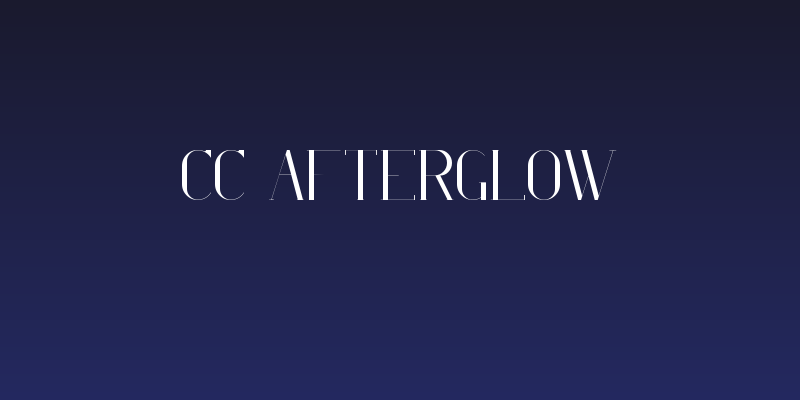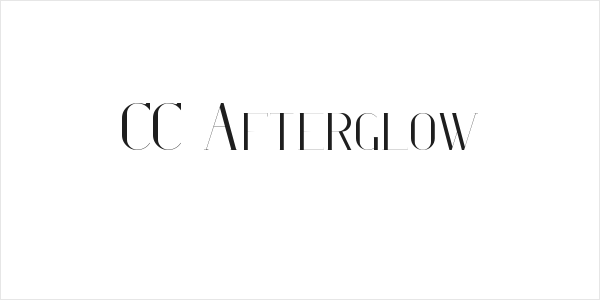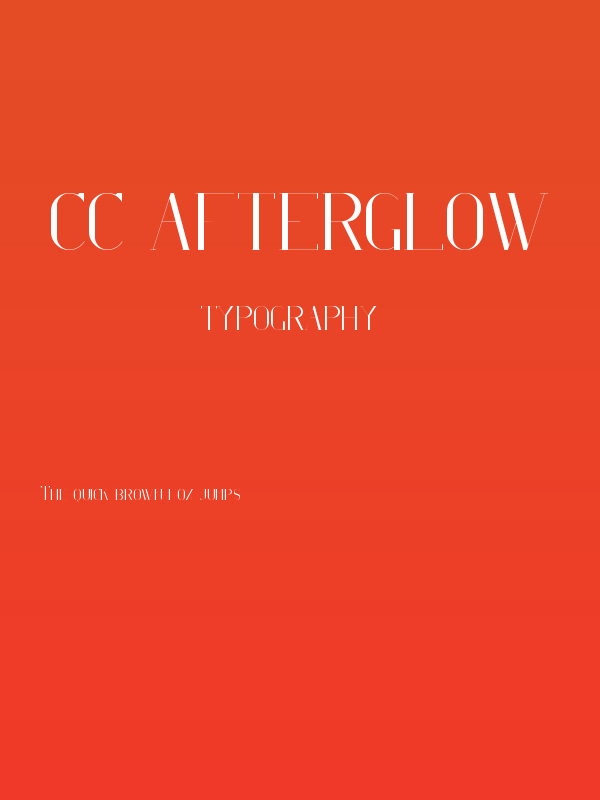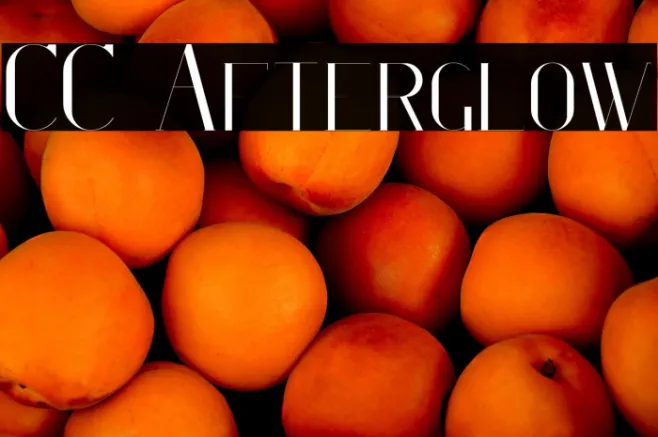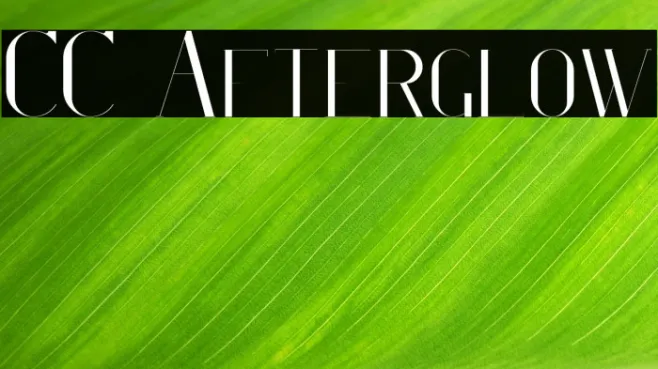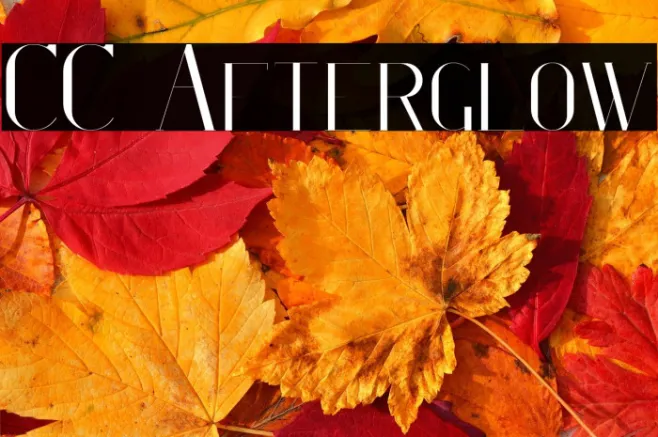
CC Afterglow Font
CC Afterglow Description
This font features a modern and elegant design with a high contrast between thick and thin strokes, giving it a sophisticated and stylish appearance. The characters are sleek and elongated, with a distinct geometric influence that adds a contemporary flair. The uppercase letters are particularly striking, with sharp angles and clean lines that create a sense of precision and refinement. The numerals and special characters maintain this aesthetic, ensuring a cohesive look across all elements. This font is well-suited for projects that require a touch of elegance and modernity.
| Overall Style | Modern, Elegant |
| Proposed Projects | Ideal for luxury branding, fashion magazines, high-end product packaging, and modern editorial design. |